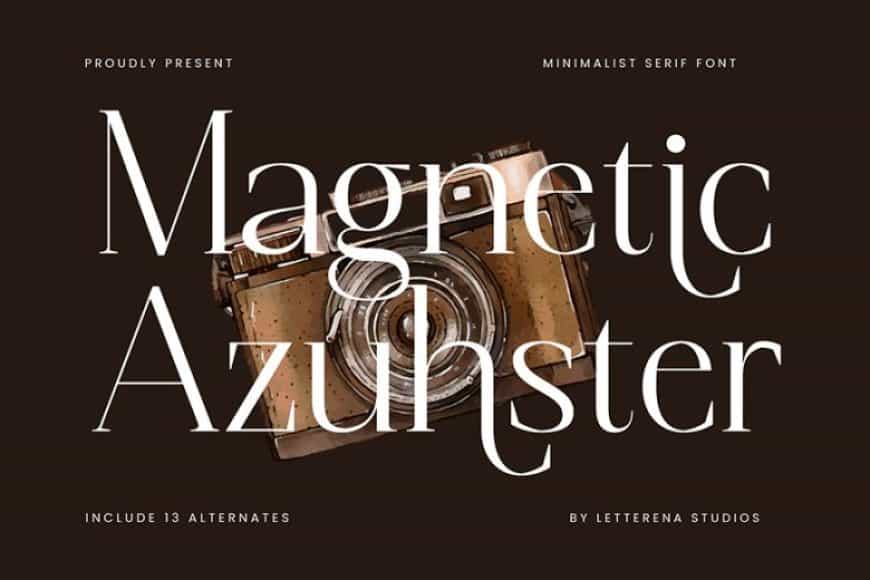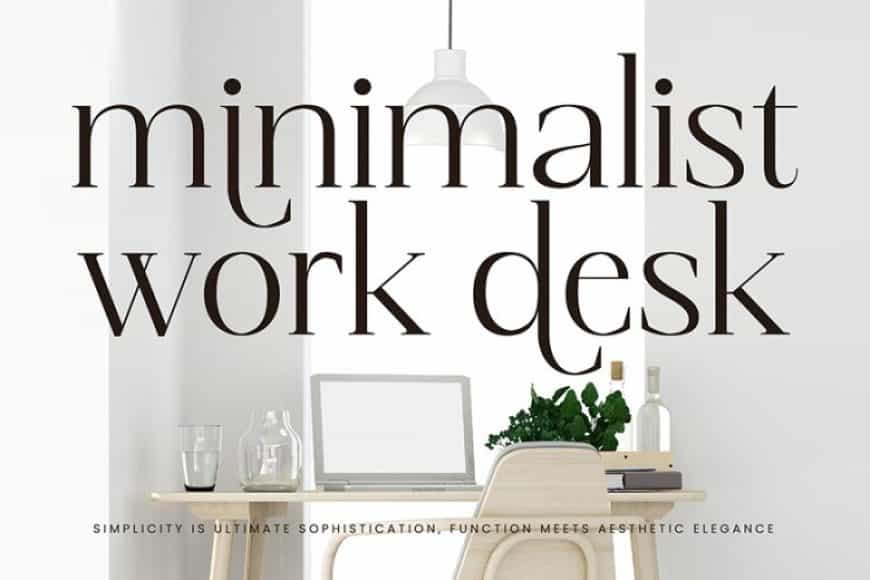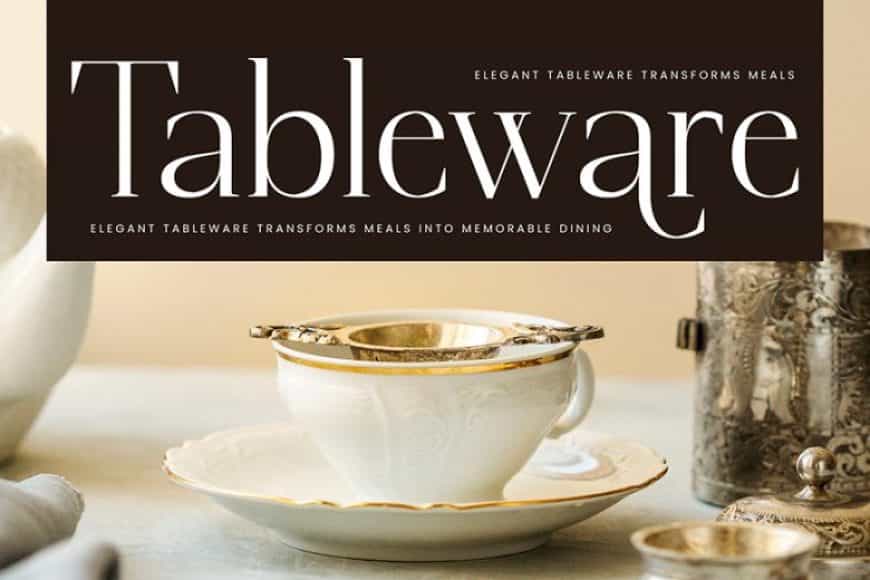
Magnetic Azuhster is a minimalist luxury serif font, from Letterena, It’s suitable for any projects such as: logos, branding projects, quotes, posters, shopping bags, t-shirts, book covers, name cards, invitation cards, greeting cards, label, photography, special events, and any of your other high-end and elegant projects that needs a touch of Luxury Serif.